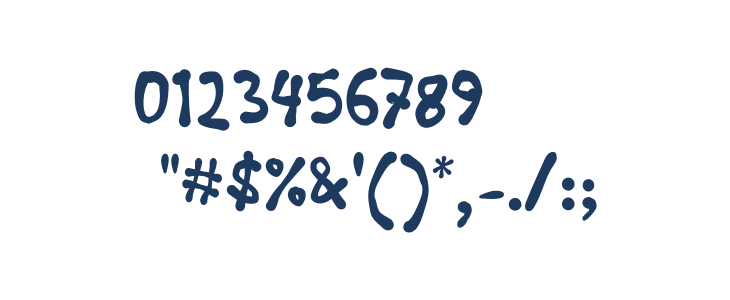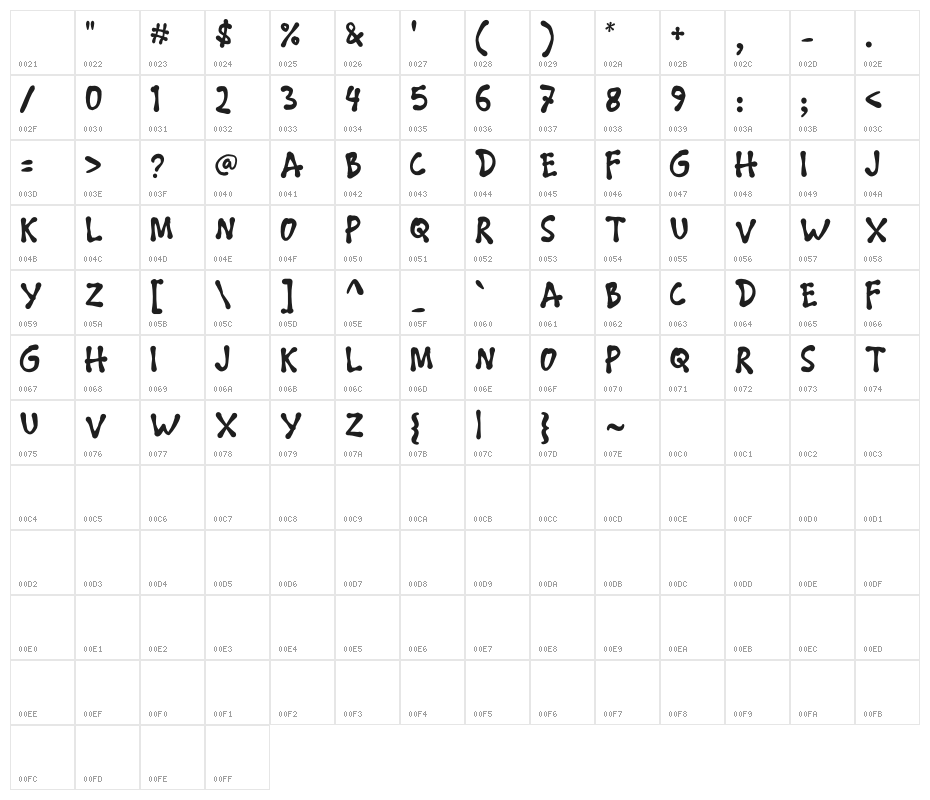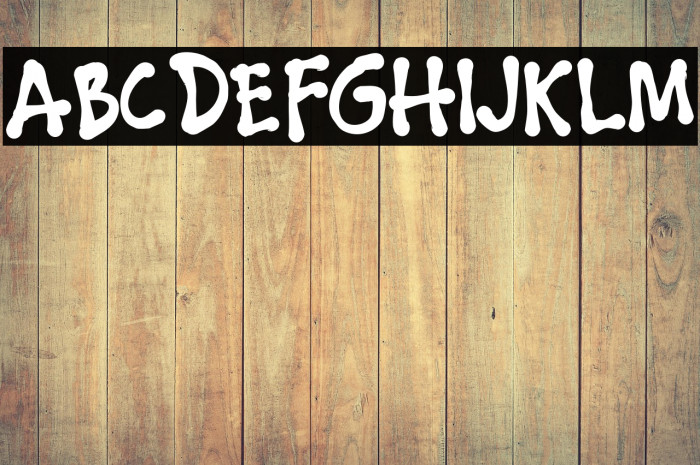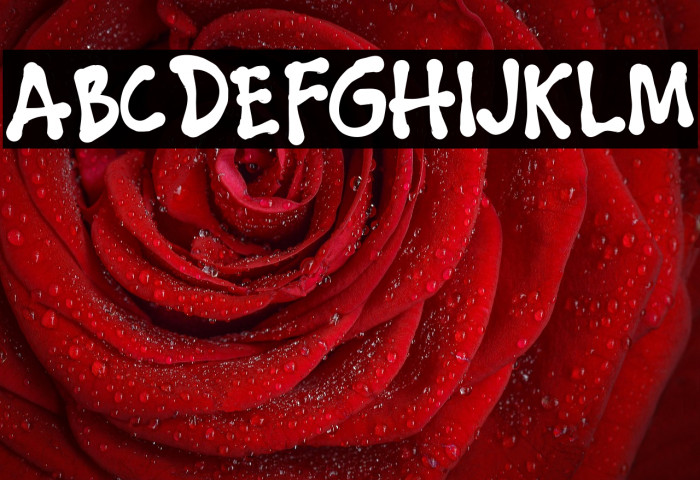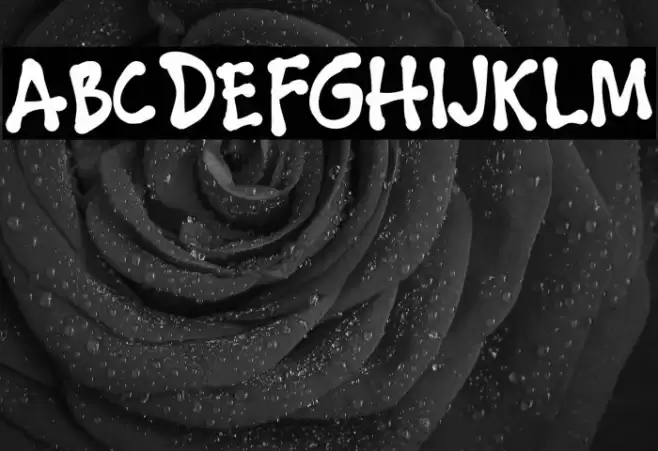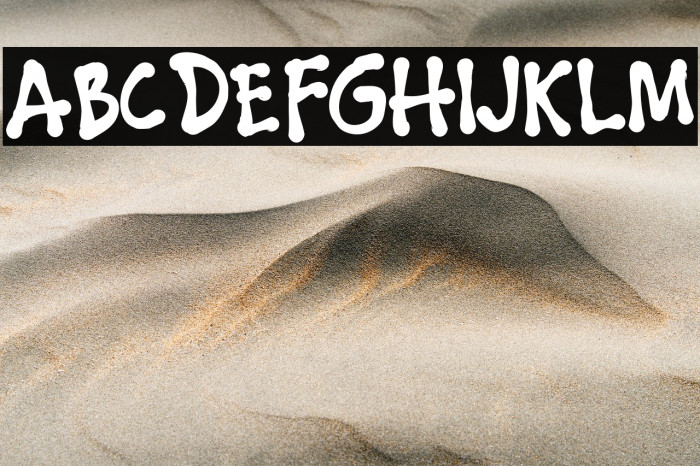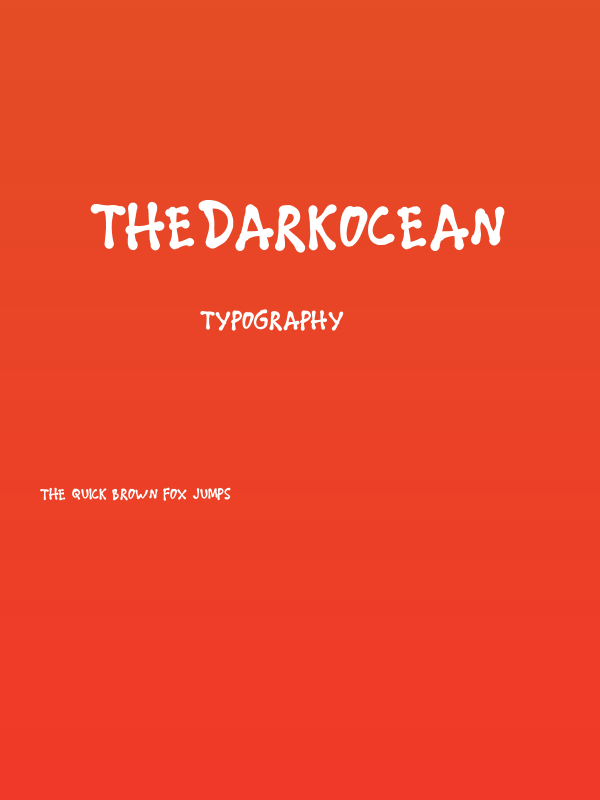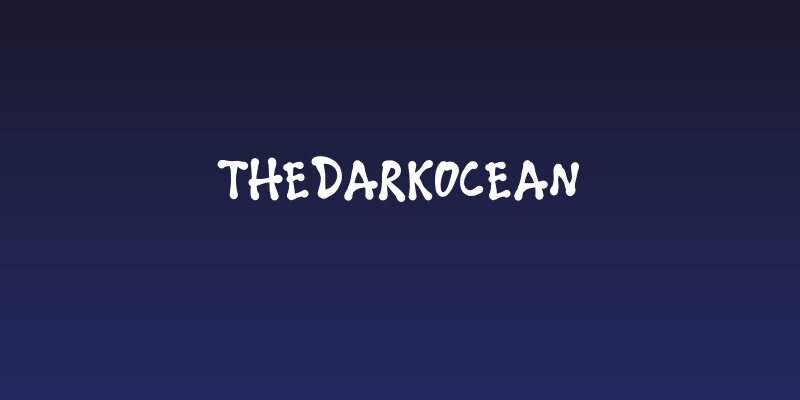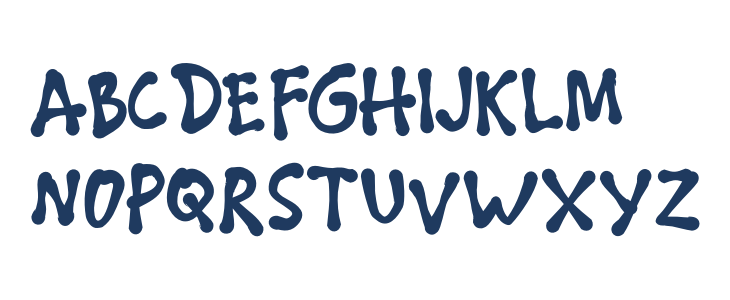
THEDARKOCEAN Font
THEDARKOCEAN Description
This font features a playful and bold handwritten style, characterized by its thick, rounded strokes and slightly irregular shapes. The letters have a casual, informal appearance, reminiscent of hand-drawn lettering with a marker or brush. The uppercase and lowercase letters maintain a consistent style, with a slightly exaggerated, whimsical flair. The numbers and special characters follow the same design principles, ensuring a cohesive look across all glyphs. This font's organic and lively nature makes it suitable for projects that require a personal touch or a fun, engaging aesthetic.
| Proposed Projects | Ideal for children's books, greeting cards, posters, and playful branding projects. |